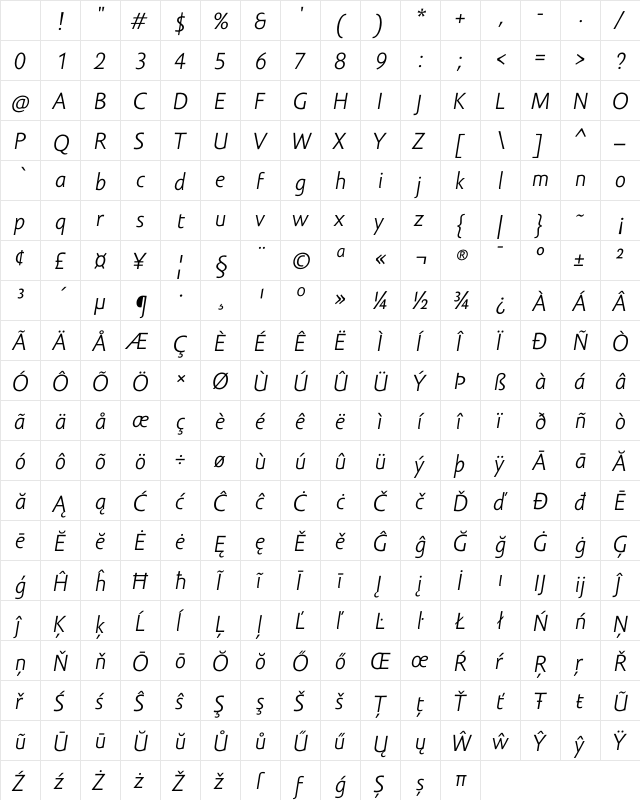
Amor Sans Pro is a composed and adaptable typeface that performs quietly and consistently across a wide range of design contexts. The slanted form adds forward momentum and visual energy.
Pro Tip: Use Amor Sans Pro for emphasis, pull quotes, and subheadings where its slanted energy can add rhythm to the layout.